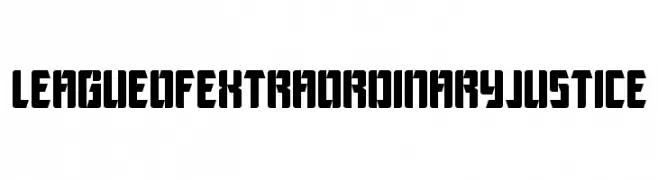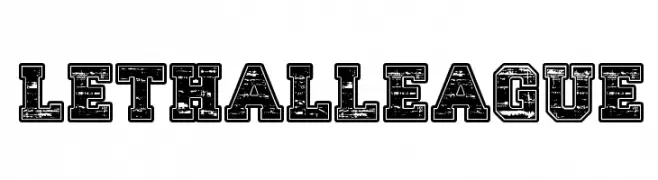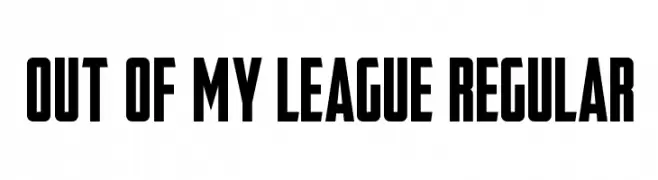
A bold, stencil-style font with a strong, industrial look.
A bold, geometric font with a futuristic and industrial style.
( Luke Sanders )
A bold, angular font with a futuristic and sporty design.
( Vladimir Nikolic - www.coroflot.com/vladimirnikolic )
Bold, outlined collegiate font with an athletic, italicized style.
( Vladimir Nikolic - www.coroflot.com/vladimirnikolic )
Bold, italicized font with a dynamic, sporty style.
( Vladimir Nikolic - www.coroflot.com/vladimirnikolic )
A bold, geometric font with a strong, athletic style.
( Vladimir Nikolic - www.coroflot.com/vladimirnikolic )
A bold, collegiate-style font with outlined, blocky characters.
( imagex - www.imagex-fonts.com )
A bold, distressed font with a vintage, rugged aesthetic.